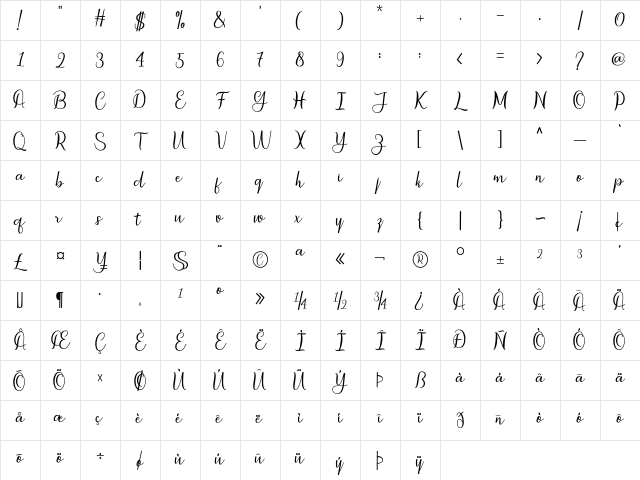
Complete jackpot Regular glyph index. Displaying only characters natively supported by jackpot Regular font.
jackpot is a composed and adaptable typeface that performs quietly and consistently across a wide range of design contexts.